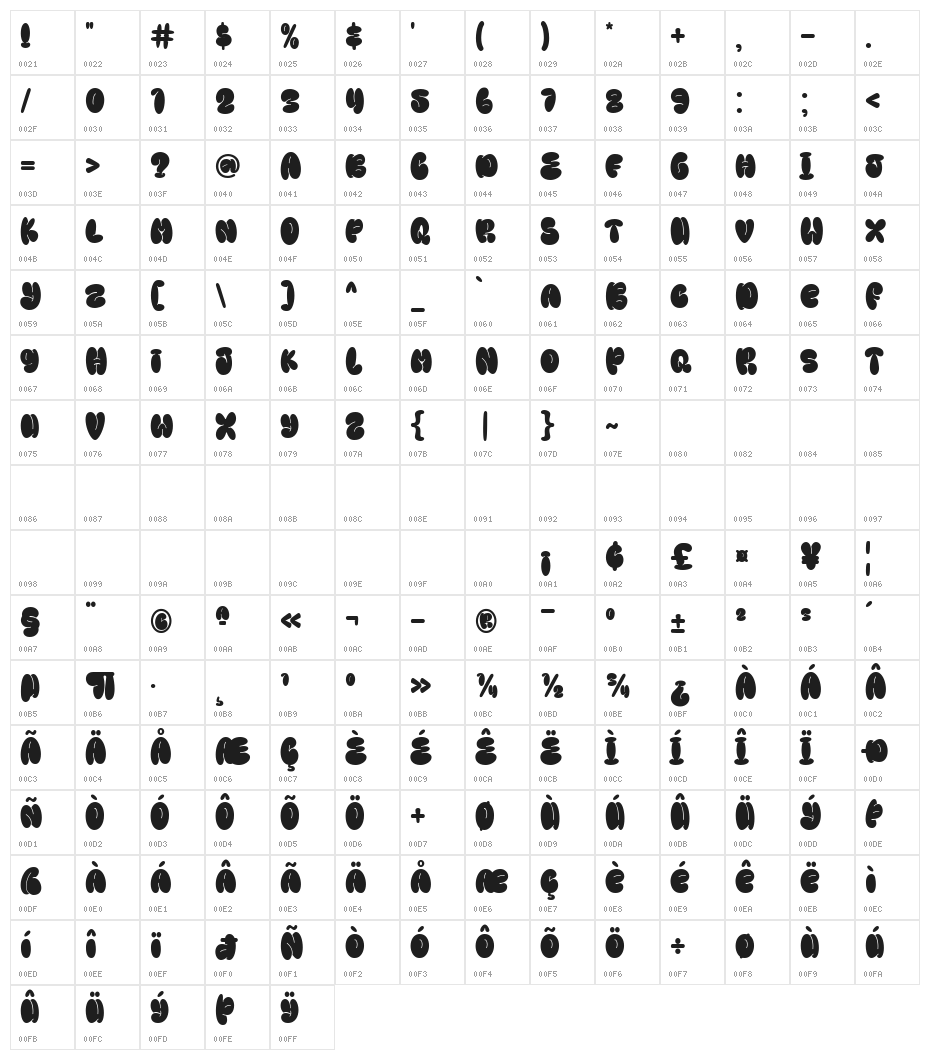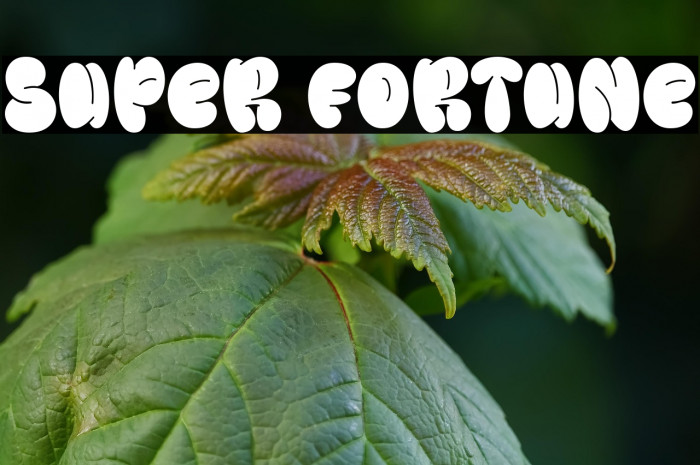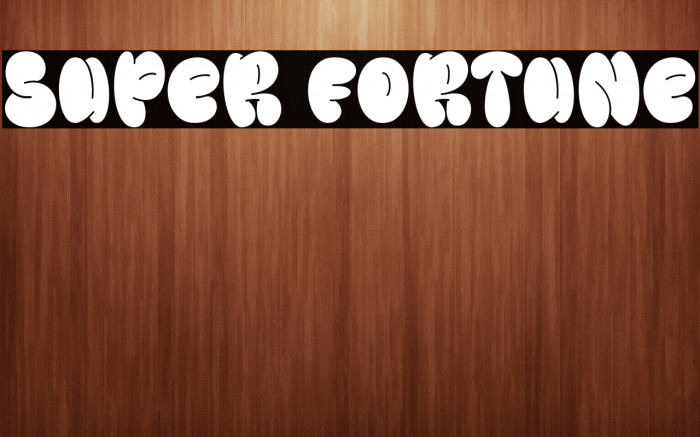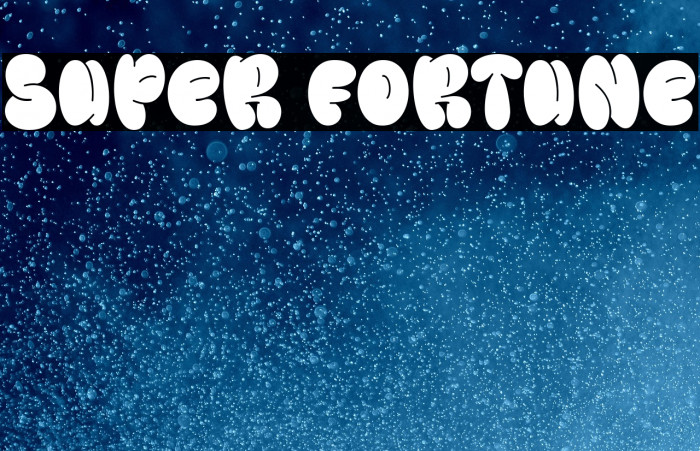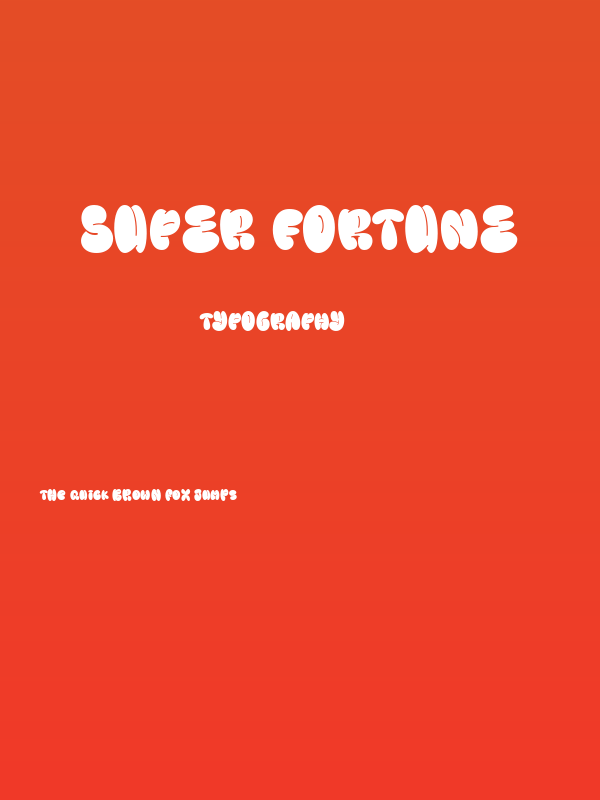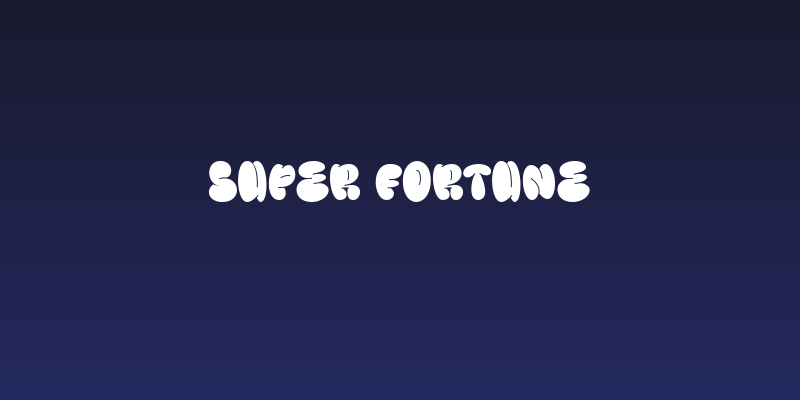
Super Fortune Font
| 全体的なスタイル | Playful, Whimsical |
| 用途 | Headlines, Posters, Branding |
| おすすめプロジェクト | Ideal for children's books, playful branding, event posters, or any project needing a fun and lively touch. |